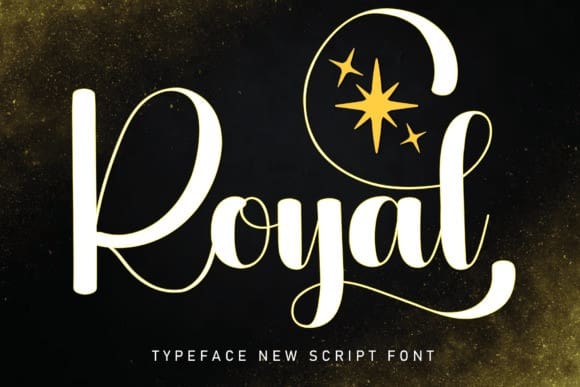
Royal Script Font
Royal Script Font, perfect for wall displays, wedding invitations, social media post logos,
advertisements, product packaging, product designs, labels, photography, watermarks, invitations, stationery, and any project that requires taste handwriting.